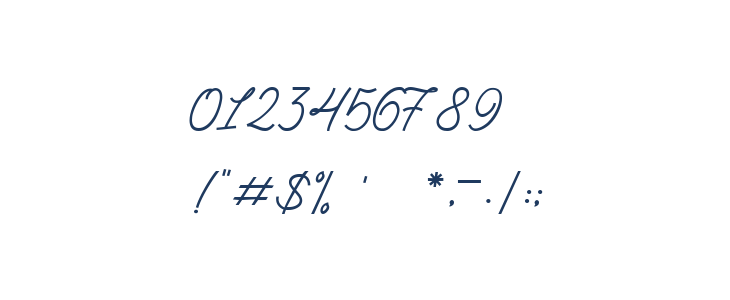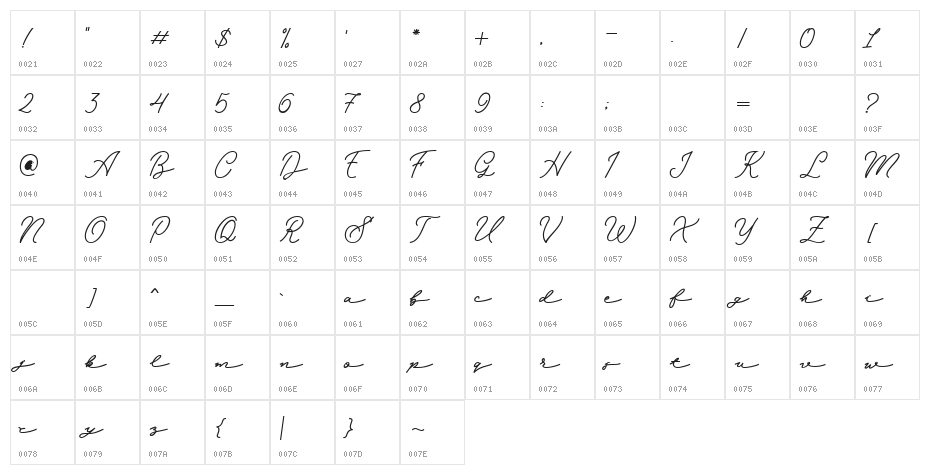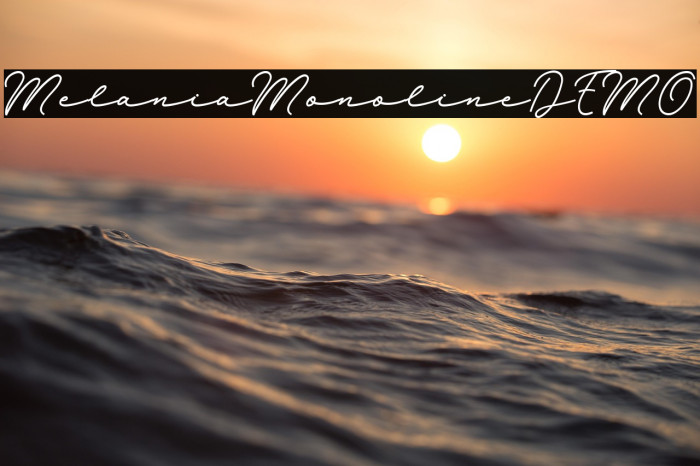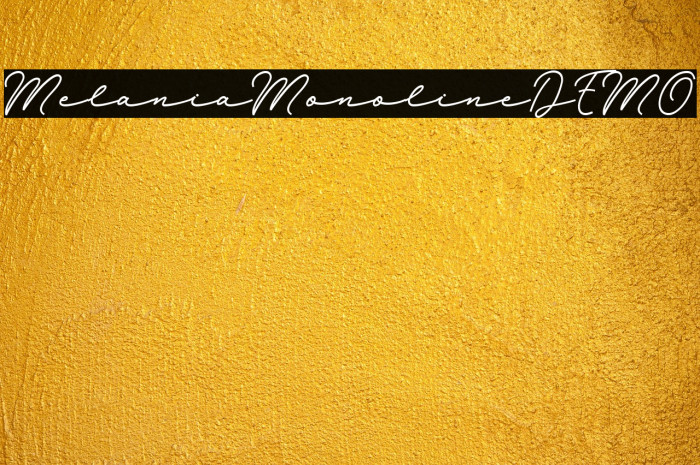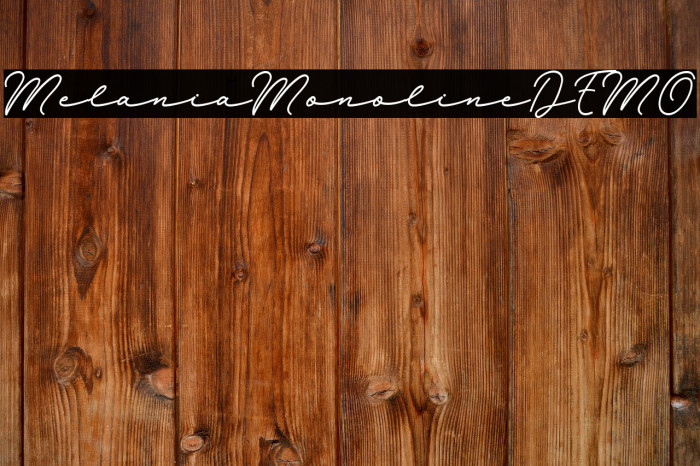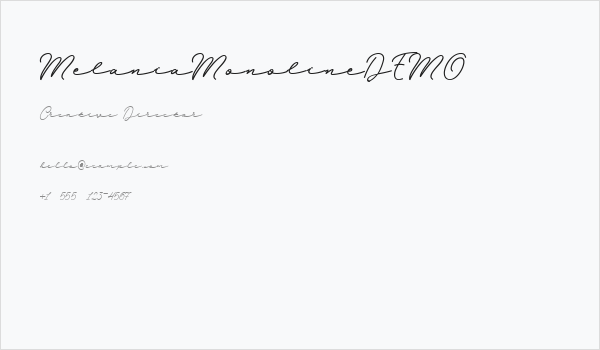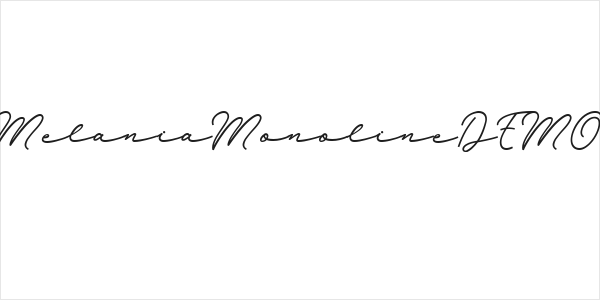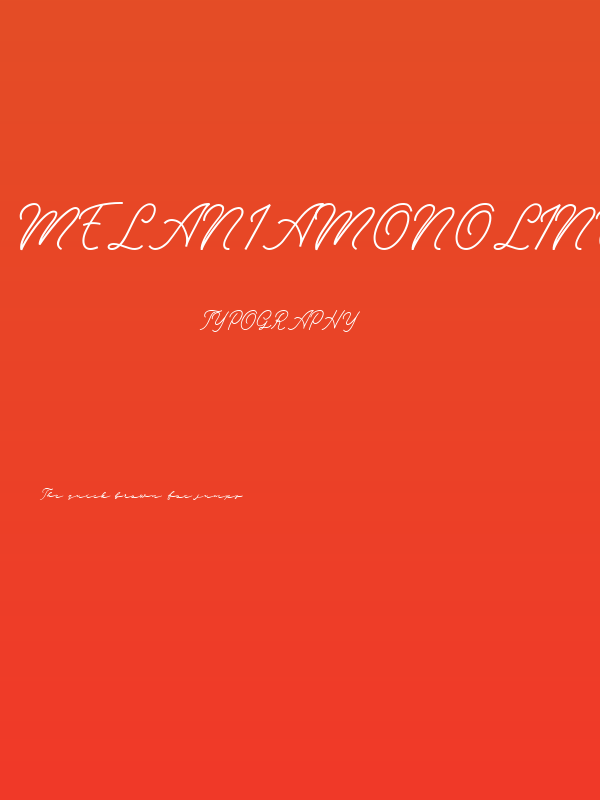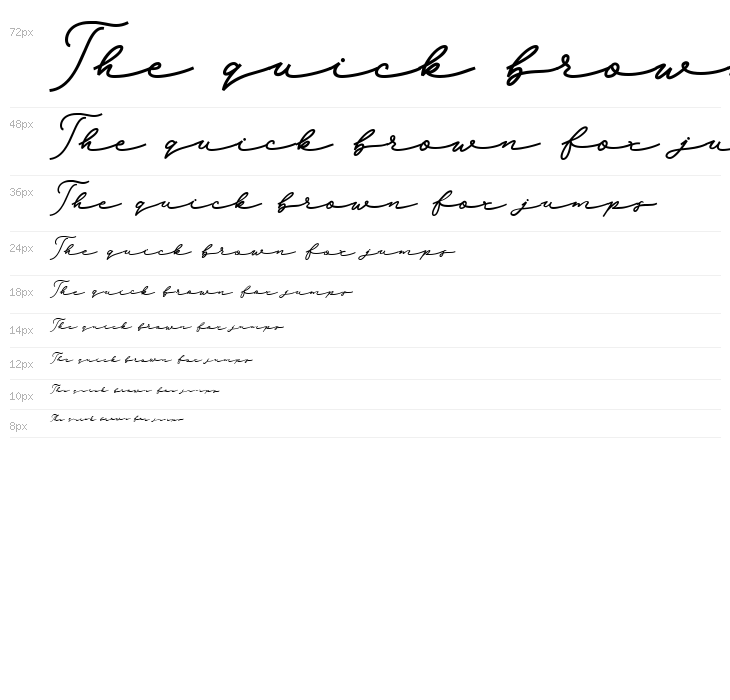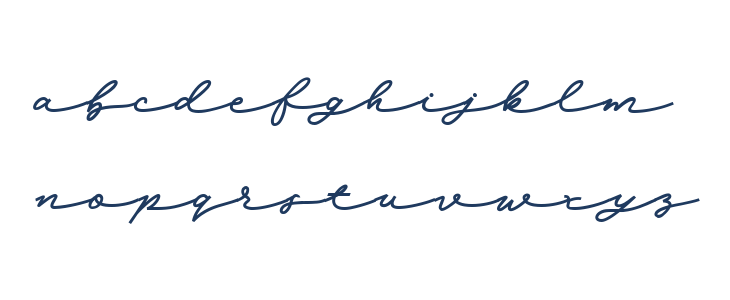
MelaniaMonolineDEMO Font
MelaniaMonolineDEMO Description
This elegant script font features a flowing, monoline style that mimics the fluidity of cursive handwriting. Each character is crafted with smooth, continuous strokes, creating a harmonious and connected appearance. The uppercase letters are slightly more ornate, with graceful loops and curves, while the lowercase letters maintain a consistent, flowing line. The numerals and special characters are designed to complement the overall script style, ensuring a cohesive look across all text. This font exudes a sense of sophistication and charm, making it ideal for projects that require a personal, handwritten touch.
| Overall Style | Elegant, Handwritten |
| Proposed Projects | Wedding invitations, greeting cards, personal branding, elegant logos, and decorative quotes. |